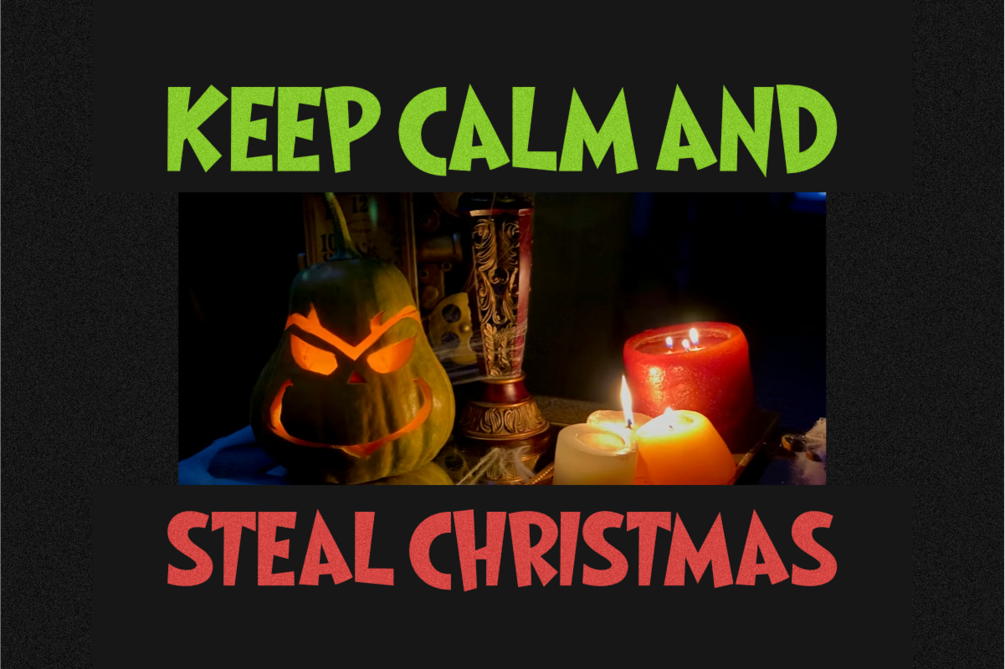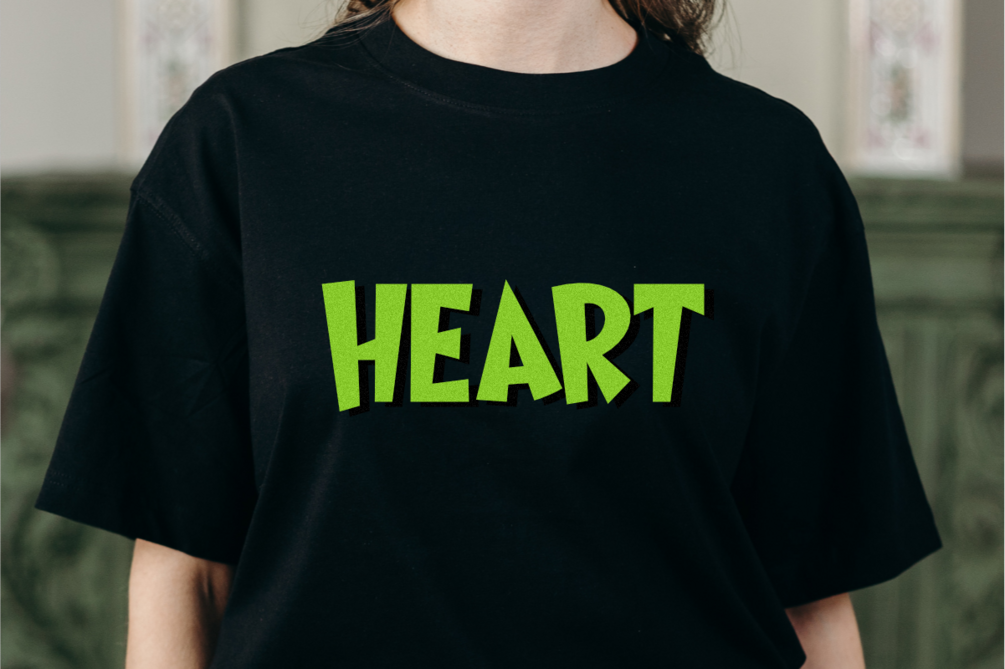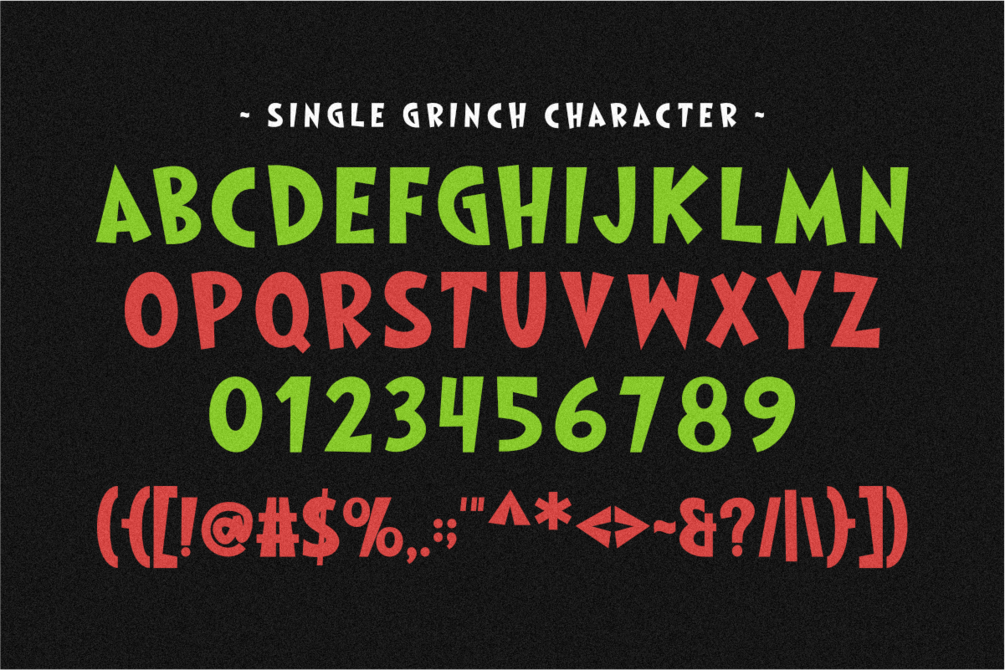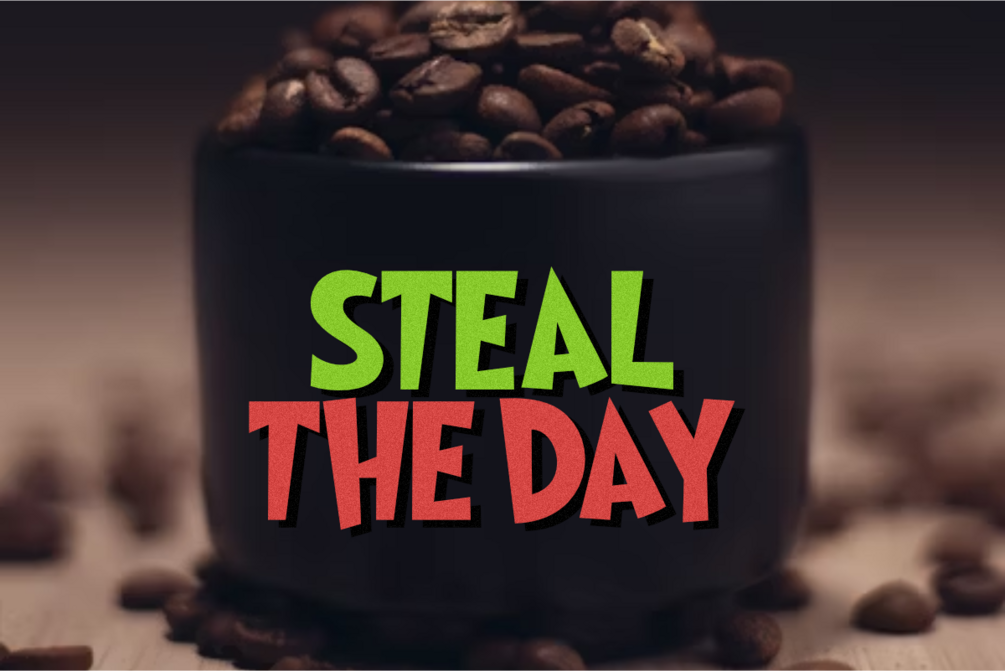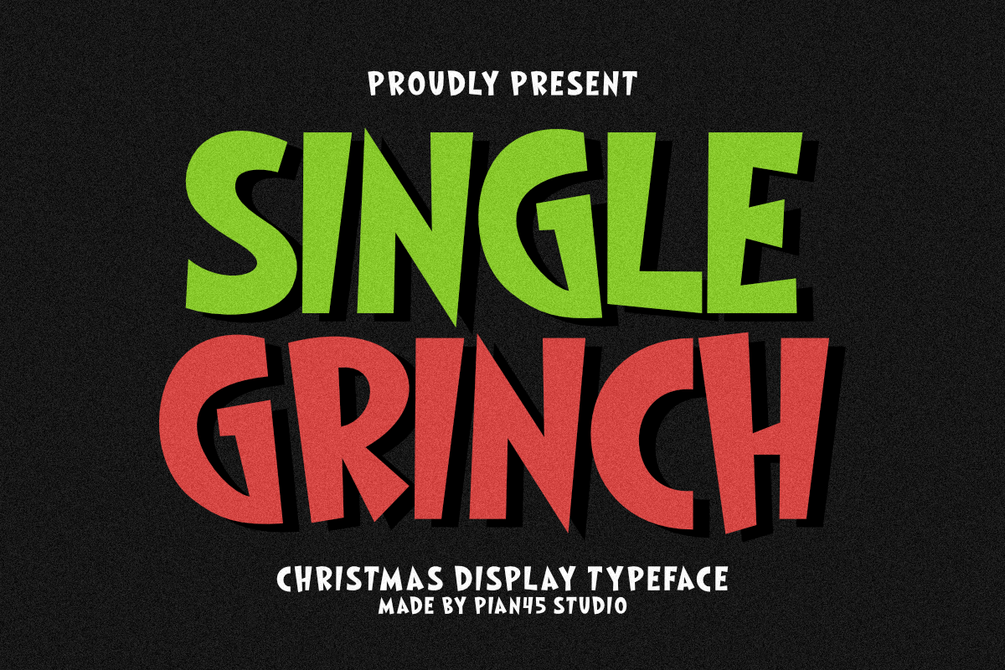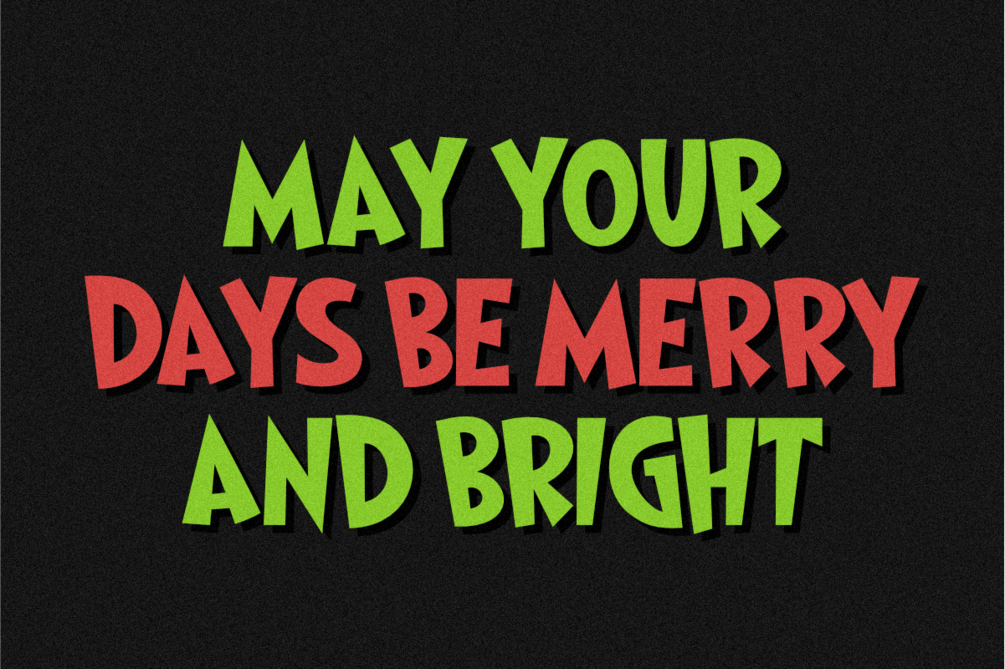
Single Grinch - Christmas Display Typeface
Single Grinch is a wonderfully bold and quirky Christmas Display Typeface that is full of character and holiday fun. Its thick, slanted, and slightly uneven structure, combined with a striking shadow effect, makes it the perfect font for fun holiday apparel, playful Christmas posters, children's designs, and any project needing a whimsical and memorable festive touch for December marketing.